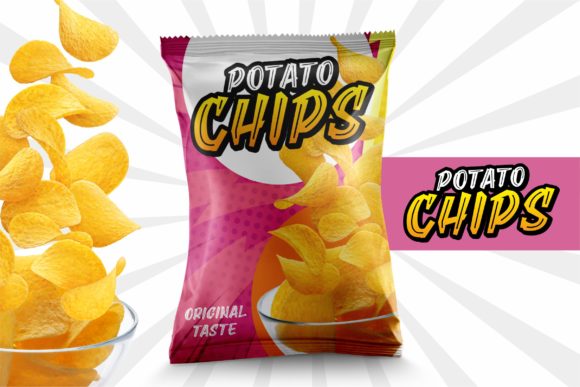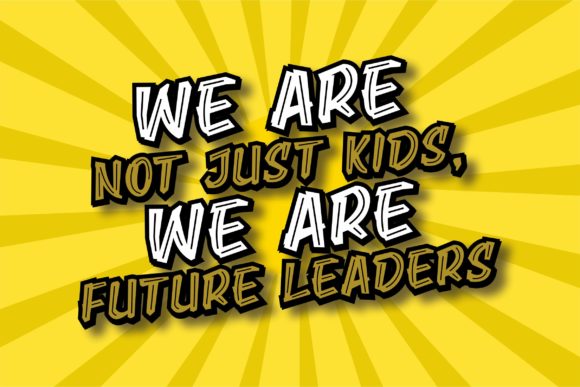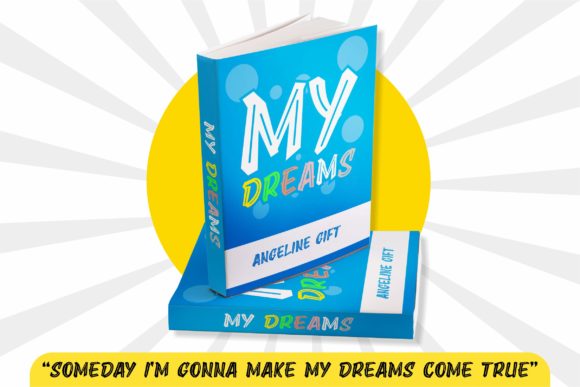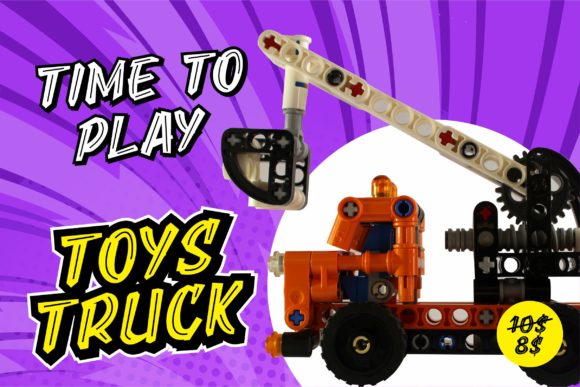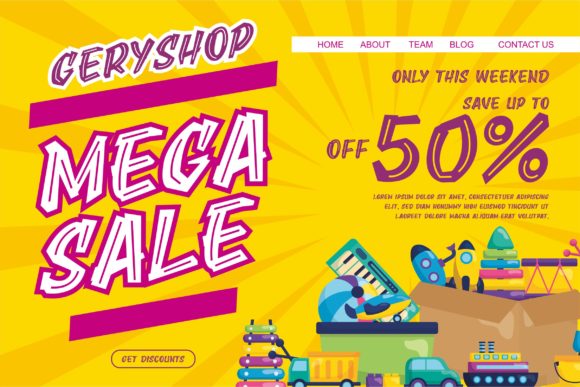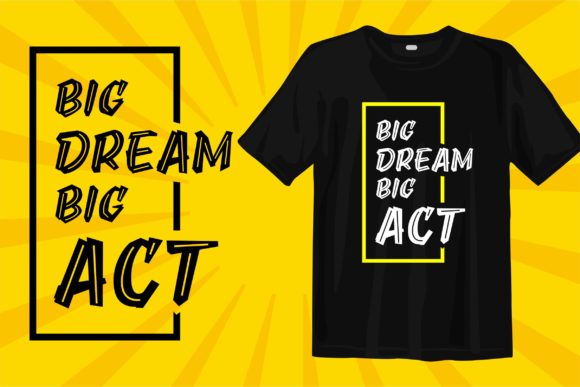
Introduction to Leader Kids Font
Leader Kids is a fun and unique display font.
It will elevate a wide range of design projects to the highest level, be it branding, headings, wedding designs, invitations, signatures, logos, labels, and much more .